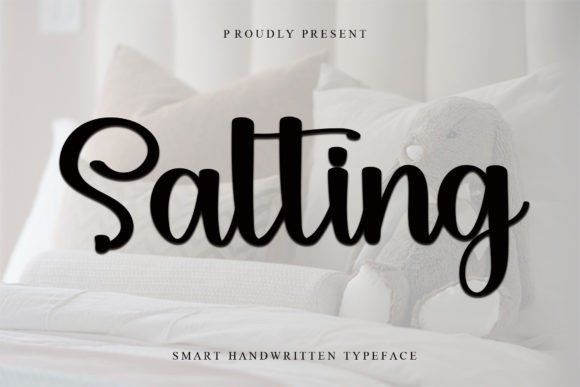
Introducing Salting Font, the epitome of elegance and sophistication in the world of typography. Crafted with utmost care and creativity by FreshTypeINK, this exquisite script font is set to revolutionize your design projects. Whether you're aiming to create a luxurious logo, mesmerizing branding, captivating invitations, or exquisite stationery, Salting Font will effortlessly elevate your creations to new heights.
Immerse yourself in the allure of Salting Font, where every stroke exudes charm and grace. Its meticulously handwritten design showcases a perfect blend of class and modernity, making it an ideal choice for those seeking a touch of finesse in their designs. With its graceful curves and impeccable details, this font effortlessly captures attention and leaves a lasting impression.
Salting Font is a versatile companion that adapts effortlessly to various design needs. Its captivating beauty transcends beyond logos and branding, making it a go-to choice for wedding designs that exude timeless elegance. Whether you're designing enchanting invitations or crafting personalized stationery, Salting Font adds a touch of sophistication that will leave recipients in awe.
Unleash your creativity on social media platforms with Salting Font, and watch as your posts come to life with style and panache. From eye-catching captions to captivating quotes, this font will transform your content into a visual masterpiece, effortlessly stopping scroll-happy users in their tracks. Brace yourself for an influx of likes, comments, and shares as your designs become the talk of the town.
But wait, there's more! Salting Font not only captivates visually but also speaks to the emotions of your audience. Its graceful strokes evoke a sense of joy, warmth, and excitement, creating an emotional connection that resonates with your target market. Whether you're aiming to evoke a sense of nostalgia, ignite curiosity, or inspire action, Salting Font is the perfect tool to convey your message with finesse.
Step into a world where elegance meets innovation with Salting Font. Say goodbye to mundane and hello to extraordinary as you explore the endless possibilities this font has to offer. Transform your designs into captivating works of art that leave a lasting impact on your audience.